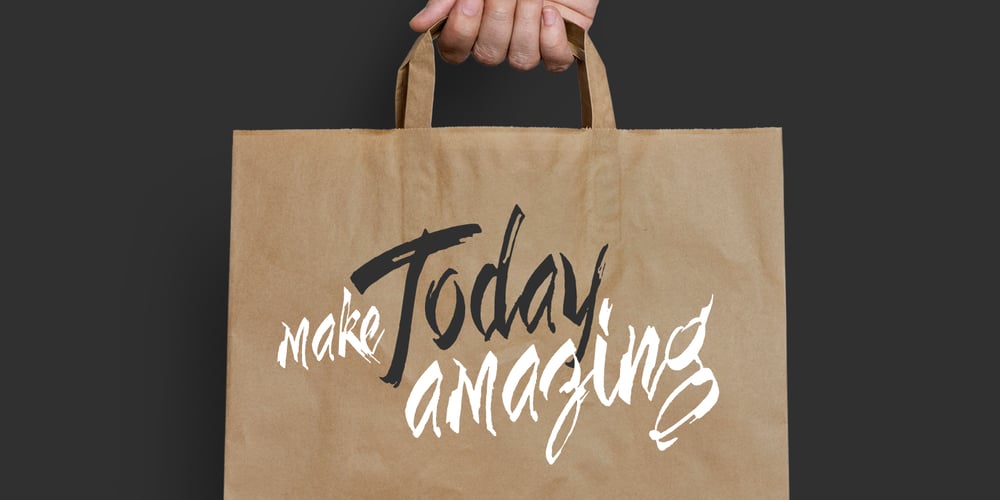
Little Mess Font Family was designed by Gleb Guralnyk and published by Gleb Guralnyk. Little Mess contains 1 styles and family package options. Hi! Introducing this handcrafted calligraphic script named “Little Mess”. It’s made with a calligraphic pen in a casual rough style. It has a multilingual support and several ligatures. Thank you and have a great day!